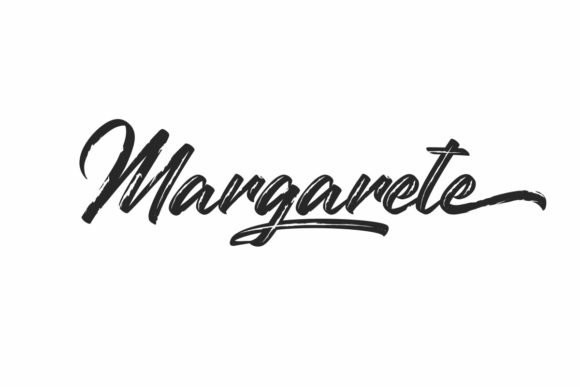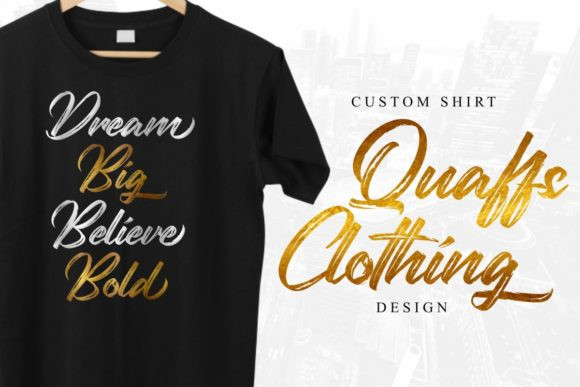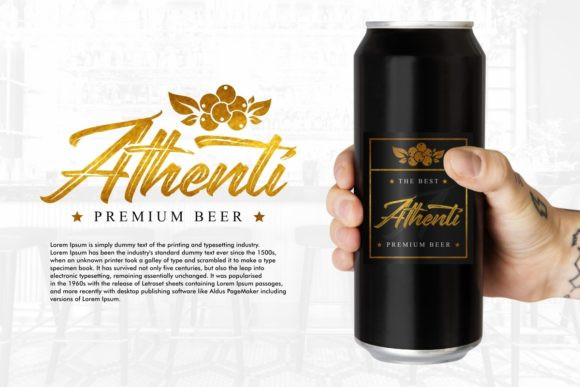
Margarete Font
Margarete is a lovely and delicate script font that exudes elegance and class. This font was particularly crafted for those who need a beautiful and refreshing look to their designs. Margarete is PUA encoded which means you can access all glyphs and swashes with ease!